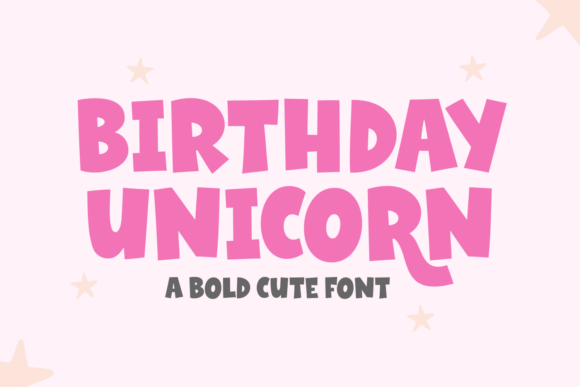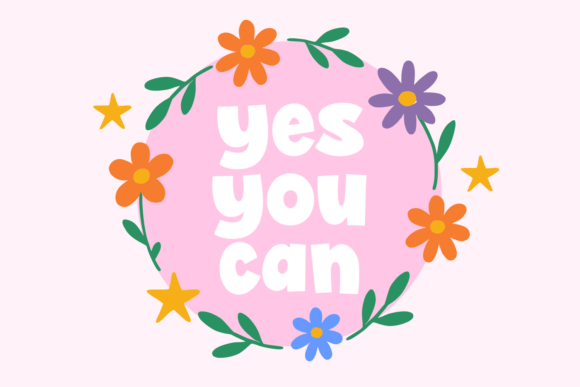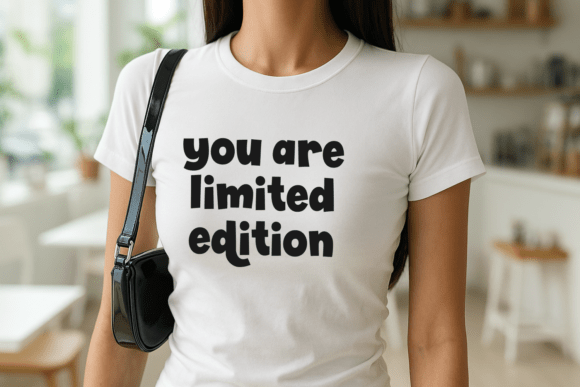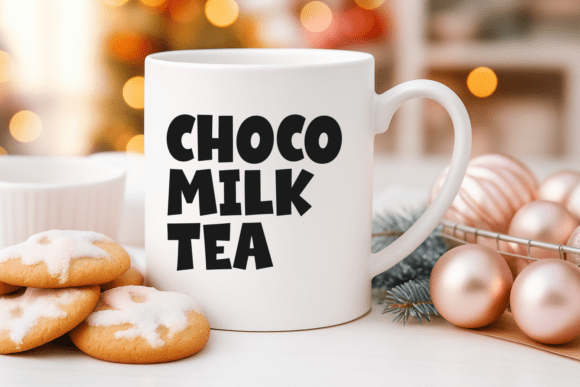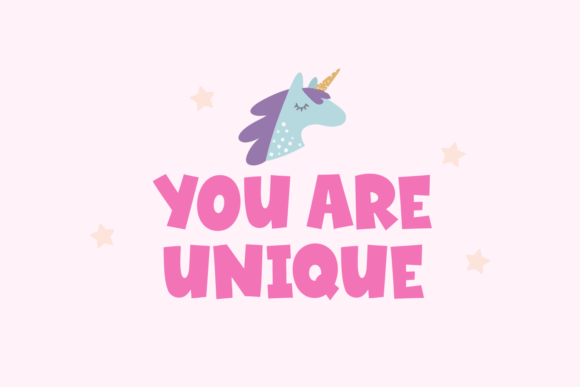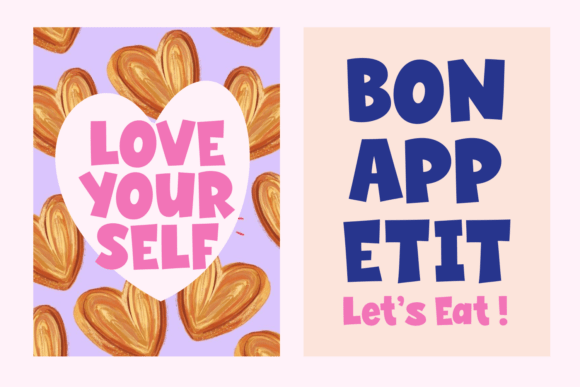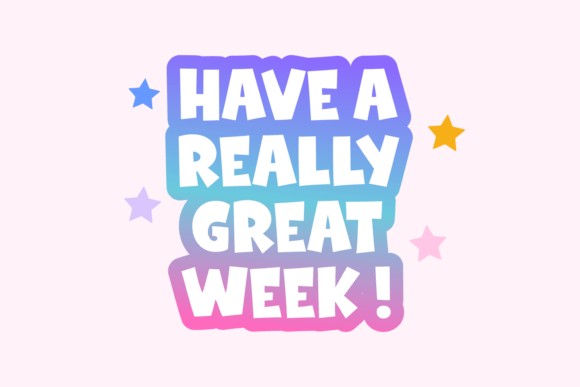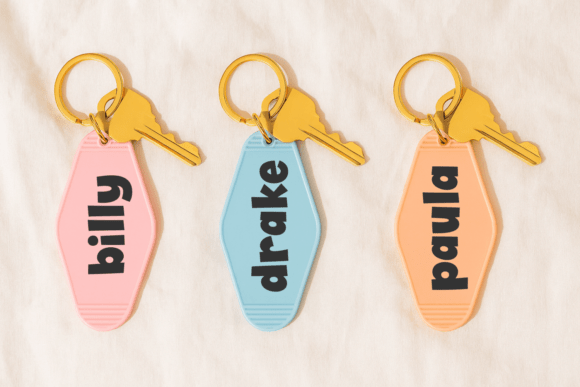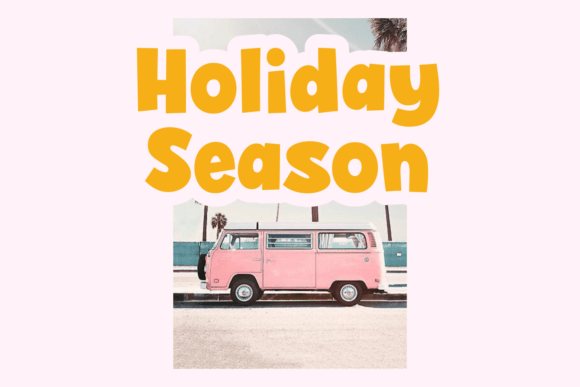
Birthday Unicorn Font
Birthday Unicorn is a bold and playful comic-style font that adds fun and excitement to any design. With its chunky letterforms and cheerful vibe, this font is perfect for children’s projects, birthday invitations, party decorations, posters, games, stickers, and more.
The font also includes alternate characters, giving you flexibility to create unique and dynamic typography. Its comic-inspired style makes it both eye-catching and friendly, ideal for designers who want to bring joy and energy into their creative work.
Whether you’re designing for kids, parties, or playful branding, Birthday Unicorn will make your text stand out with charm and personality.